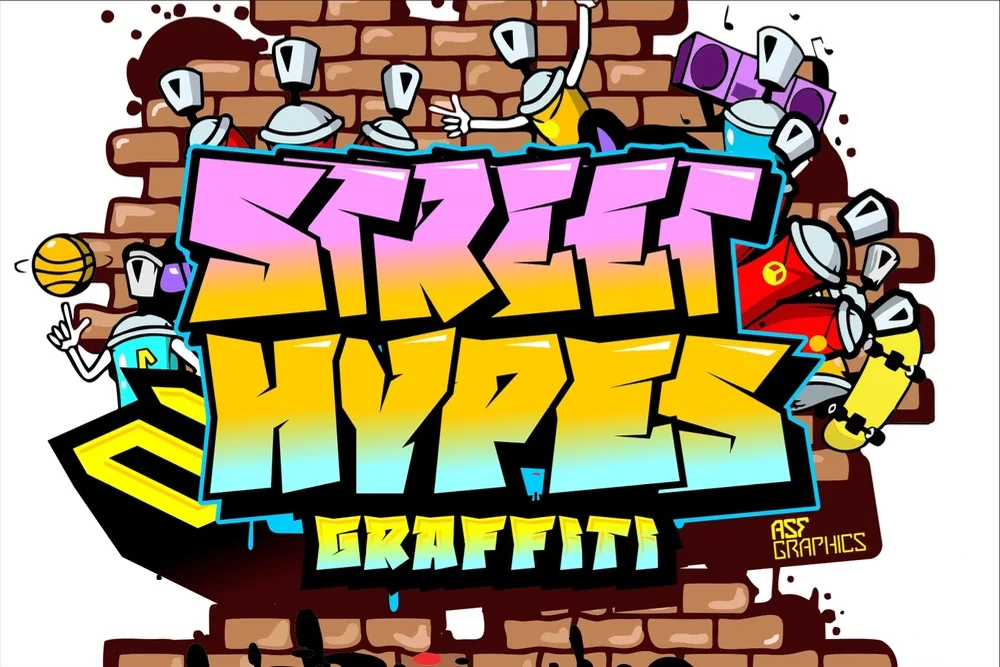
Street Hype Headline Font
This graffiti headline font was picked for the collection because it solves a problem the obvious choices do not. Compressed capitals that pack a lot of words into a narrow column. Efficient, punchy, and endlessly reusable.
The characters are noticeably narrow with flat sides and minimal curve, so long headlines fit without shrinking the type size. Uppercase carries the design; lowercase is deliberately plain.
Useful for magazine headlines, mobile-first web headers, video titles, and poster subheads.
Worth knowing: tighten the letter spacing well past what feels comfortable. Painted lettering is set tight, and default digital spacing makes this genre look oddly polite.